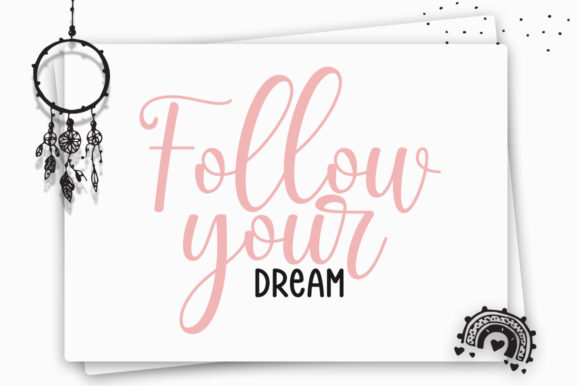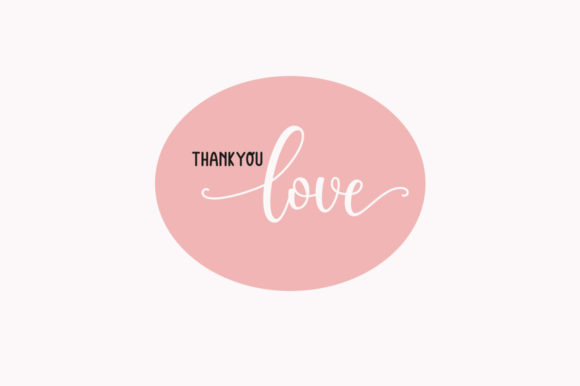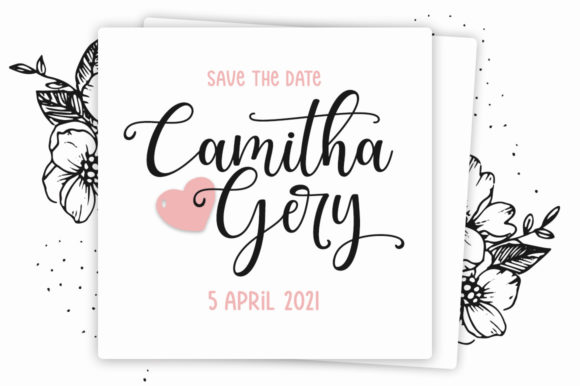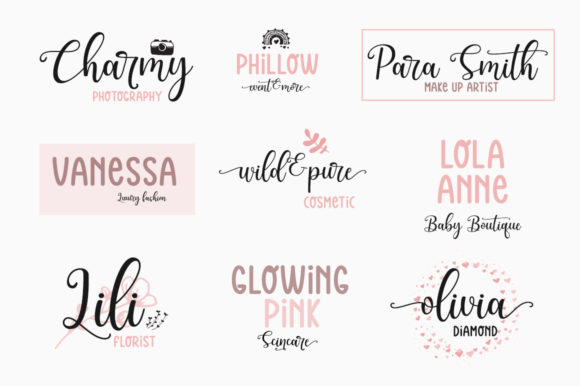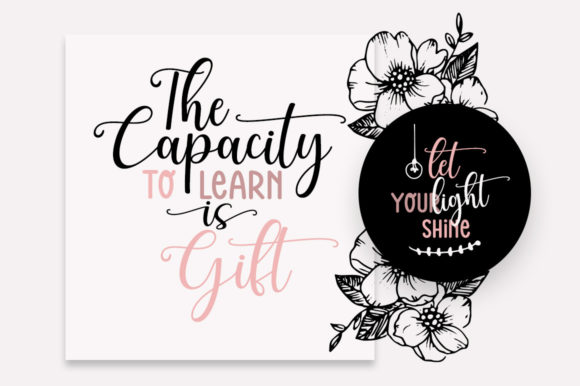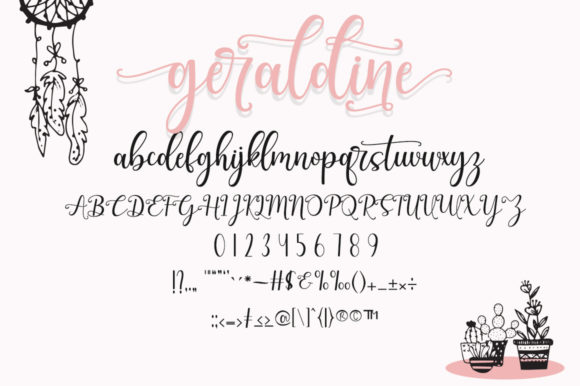
Emily Geraldine Font
About Emily Geraldine Font
Emily Geraldine is a lovely and versatile duo font that includes both a sans serif and script style. With its PUA encoding, you can easily access all the glyphs and swashes, making it a convenient choice for your design projects. Get inspired by its light and approachable style and employ it in your favorite creations.
The beauty of Emily Geraldine lies in its versatility. The combination of a sans serif and script font provides a dynamic duo that can be used together or individually to create a wide range of design compositions. Whether you’re designing logos, branding materials, invitations, or any other project, Emily Geraldine offers flexibility and creative possibilities.
The sans serif style of Emily Geraldine brings a modern and clean look to your designs. Its simplicity and straightforwardness allow for easy readability, making it suitable for various applications. The crisp lines and minimalistic design of the sans serif font provide a contemporary and professional appearance.
The script style of Emily Geraldine adds a touch of elegance and personality to your designs. Its fluid strokes and handwritten aesthetic bring a sense of charm and warmth. Whether used for headings, titles, or decorative elements, the script font adds a beautiful and personalized touch to your creations.
The PUA encoding of Emily Geraldine allows you to easily access all the glyphs and swashes it offers. This feature empowers you to explore different letter variations, ligatures, and decorative elements, further enhancing the uniqueness and versatility of the font.
In summary, Emily Geraldine is a lovely and versatile duo font that includes a sans serif and script style. With its PUA encoding, you can effortlessly access all the glyphs and swashes, providing convenience in your design process. Embrace the light and approachable style of Emily Geraldine and let it inspire your favorite creations with its beauty and versatility.